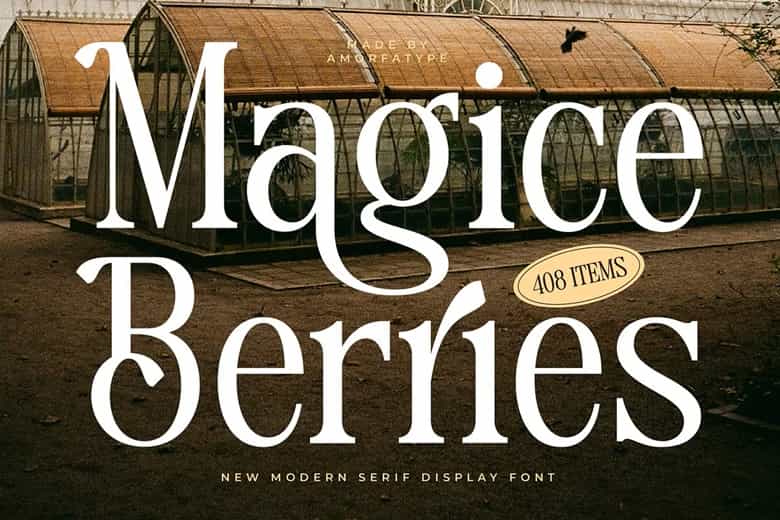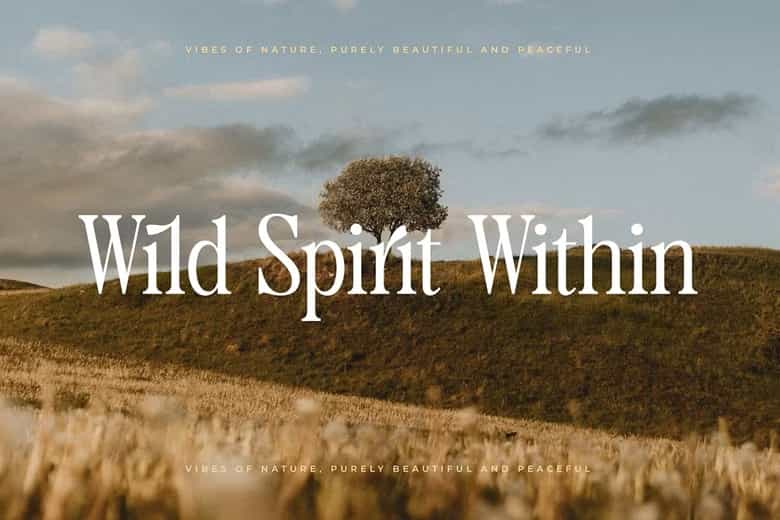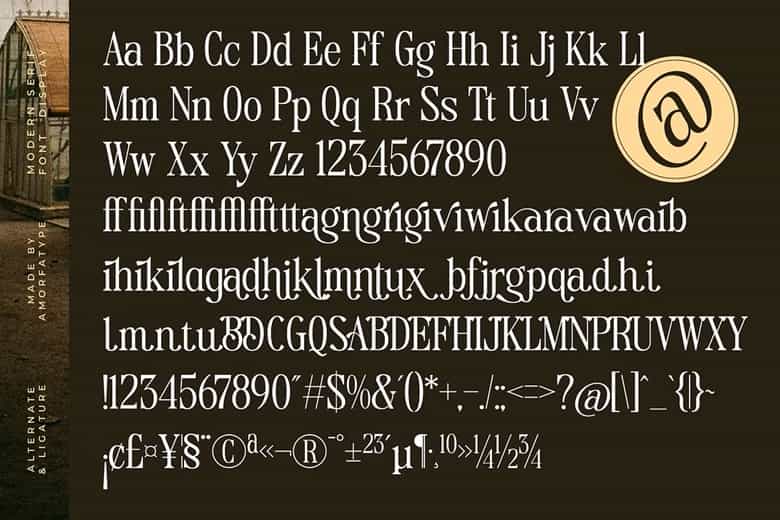
Magice Berries is a very fancy display modern serif font that combines casual nostalgia with grace. The Magice Berries style is defined with soft curves, high contrast strokes, and expressive details and creates a sense of magic, artistic touch, and, at the same time, retains the professional and clean structure. It is an ideal serif typeface of designing that needs both certain personality as well as sophistication.